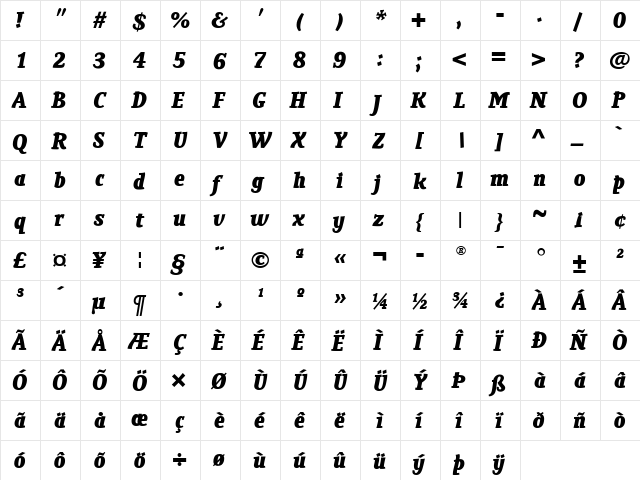
Poseidon Bold Italic
Design Context for Poseidon Typeface
Poseidon is a composed and adaptable typeface that performs quietly and consistently across a wide range of design contexts. The dynamic lean of this cut emphasises speed and emphasis in any layout. Its bold stroke weight gives it real presence on the page.
Pro Tip: Try Poseidon for annotation and caption copy alongside an upright companion — the contrast in angle creates a dynamic but ordered typographic system.